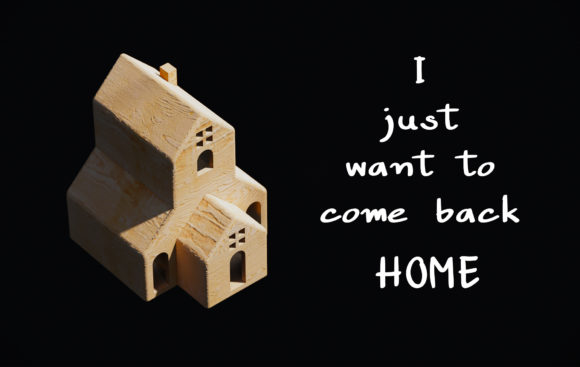
HomeScript FontsArchitar Font Script Fonts Architar Font FacebookXPinterestWhatsApp Architar Font Poster 2 Architar Font Poster 3 About Architar Font Architar is a handwritten font using thick lines. Its semi-formal style works both in elegant and casual contexts. DOWNLOAD NOW People also explored Dirabela Font Font Darita Font Rofesha Font Lily Clover Font Upbeat Eternal Font Kiara Font Bellarin Font Small Pencil Font 333 0 TagsArchitar Font Previous articleAstar FontNext articleArchi Light Font LEAVE A REPLY Cancel reply Comment: Please enter your comment! Name:* Please enter your name here Email:* You have entered an incorrect email address! Please enter your email address here Website: Save my name, email, and website in this browser for the next time I comment. Personal Use Free Lemon Milk Font Personal Use Free Read more about this font Short Message Personal Use Free Read more about this font Chandella Personal Use Free Read more about this font Haris Wood Personal Use Free Read more about this font BLOG How to Cut Any Font on Cricut: Convert a Font to SVG (Free) Turn any font into a clean SVG so it cuts crisp on Cricut - a quick 3-step workflow using a free font-to-SVG tool. The 10 Best Handwriting Fonts to Add Personality to Your Designs Best Fonts for YouTube Videos: Make Your Thumbnails Stand Out How to Install and Use Fonts on Windows, macOS, and Web Projects